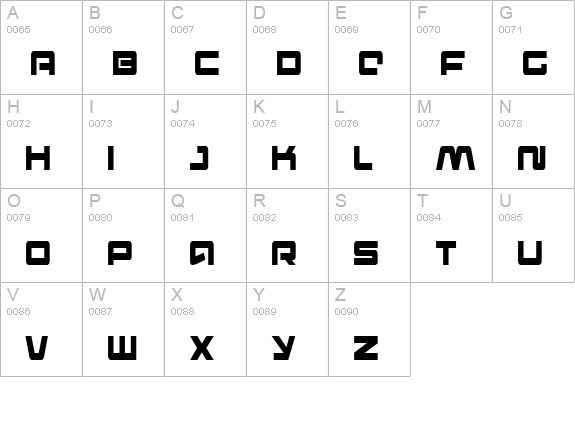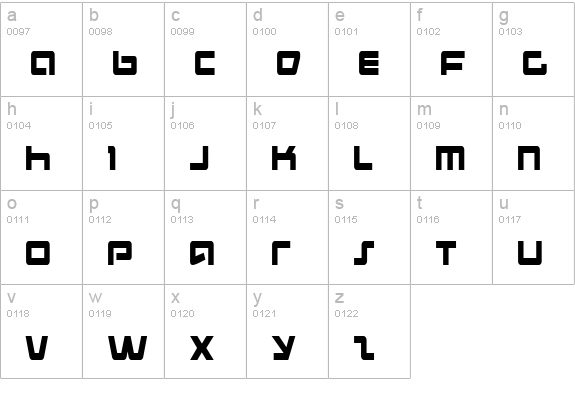
Pulse Rifle Condensed is a distinctive, condensed-width variant in the Pulse typeface family \xE2\x80\x94 well suited to design and typography projects.
Pulse Rifle Condensed is a sleek and modern font that exudes a sense of power and sophistication. Its sharp lines and bold strokes make it perfect for creating impactful headlines, logos, and branding materials. This versatile typeface is ideal for projects that require a strong and dynamic visual presence. What sets Pulse Rifle Condensed apart is not only its striking design, but also the fact that it is available for free download at FontsMarket.com. This means that you can easily access this high-quality font without any cost, making it a valuable resource for designers, creatives, and enthusiasts alike. Whether you are working on a professional project or simply looking to add a touch of style to your personal creations, Pulse Rifle Condensed is a font that will not disappoint. Download it for free today and elevate your designs with its bold and commanding presence.